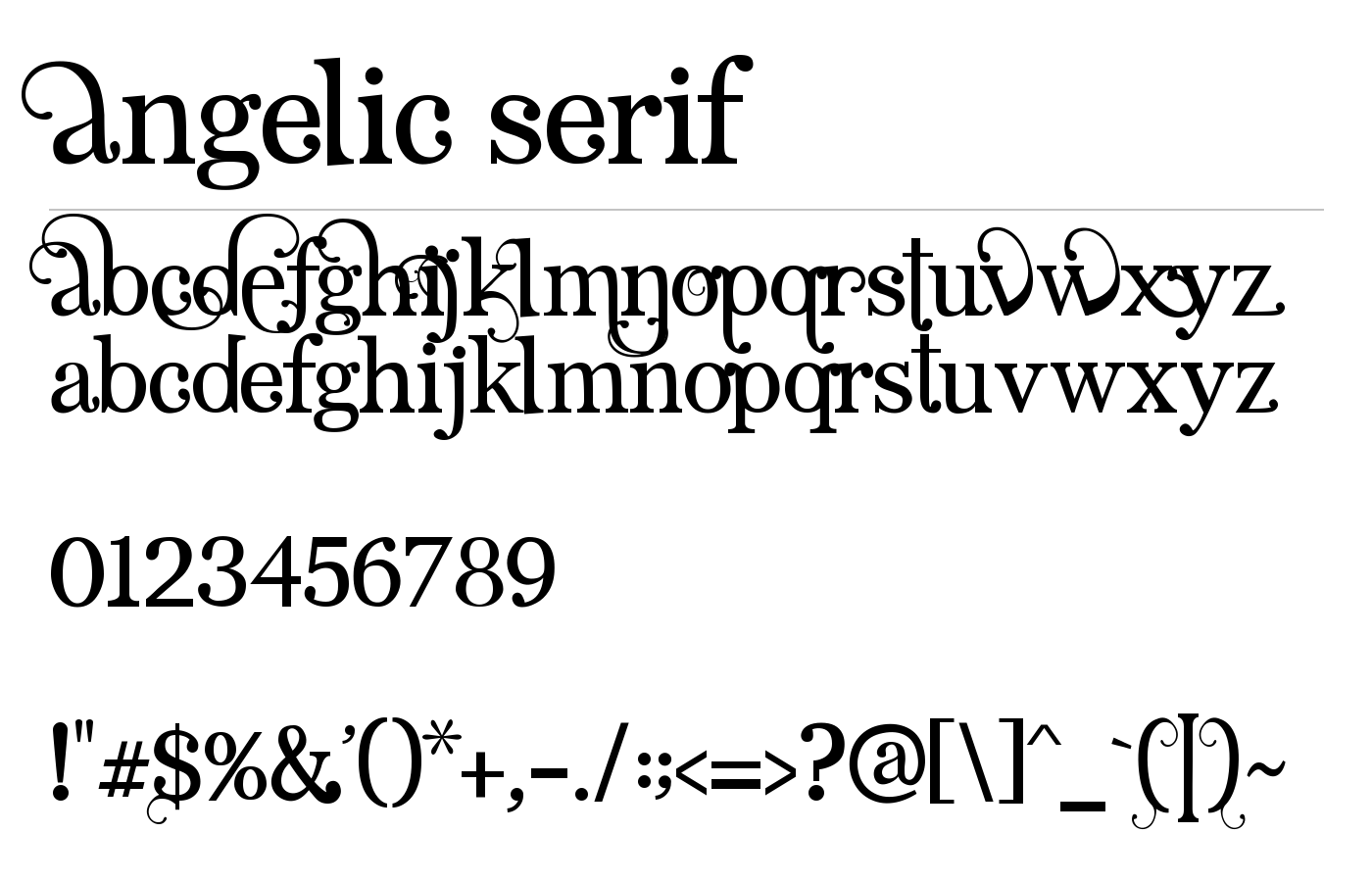
Angelic Serif is an elegant serif font that balances classic sophistication with delicate, whimsical flourishes, particularly in its lowercase letters. Its medium weight and moderate contrast make it suitable for refined, decorative use, while the unique swirled details bring a playful, graceful charm ideal for fashion branding, invitations, and upscale editorial design. This font shines best in headlines and logos where its ornate personality can truly stand out.
Angelic Serif Font
About Angelic Serif Font
| Font family | Angelic Serif Font |
| Designer | Dirt2.com |